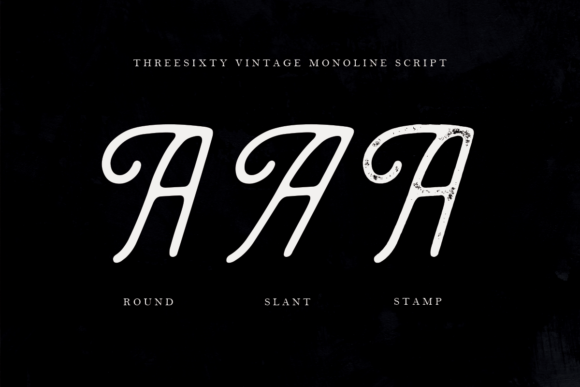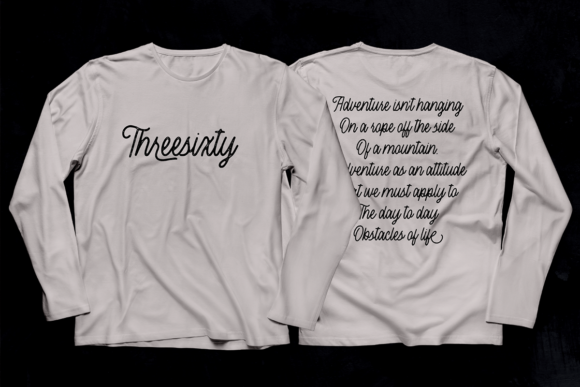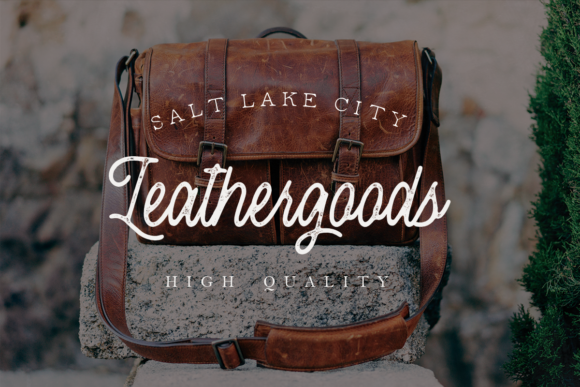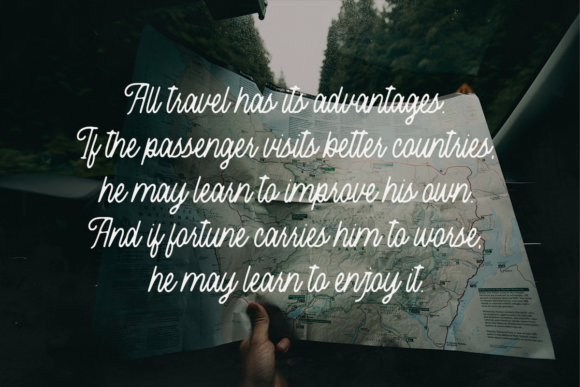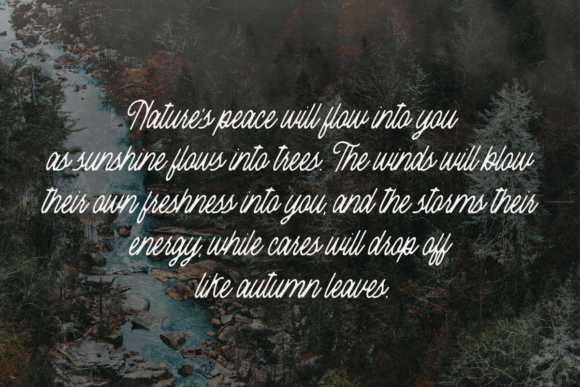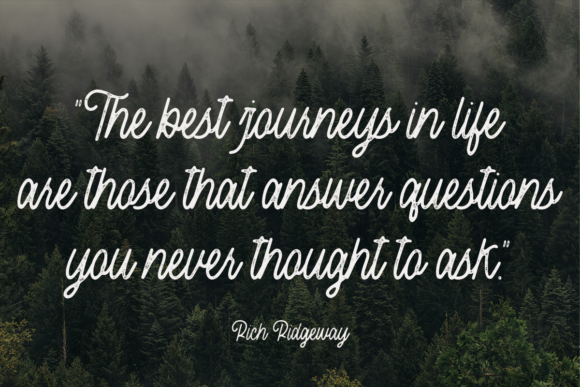
Threesixty Font
About Threesixty Font
Threesixty is a fun and bold monoline script with a unique feel. It will add a personal touch to any design project.